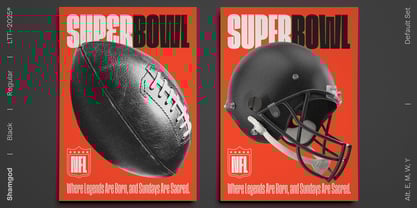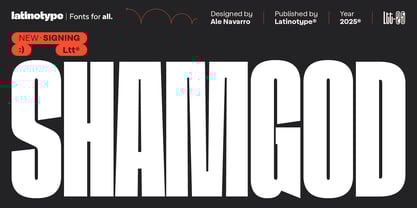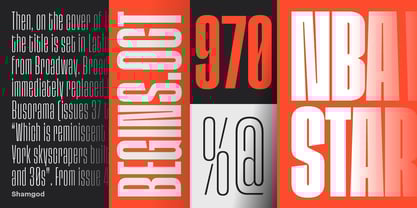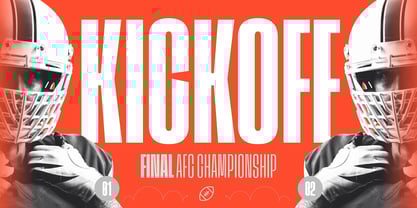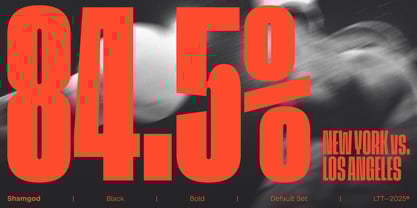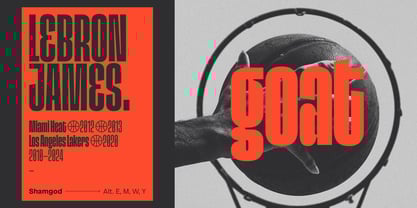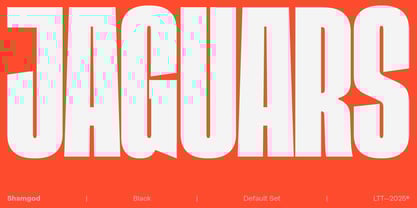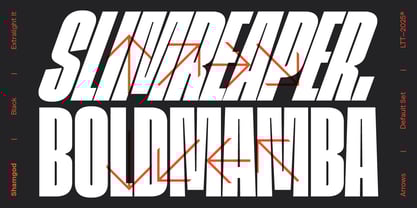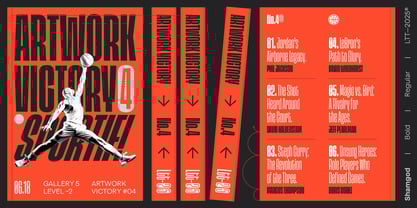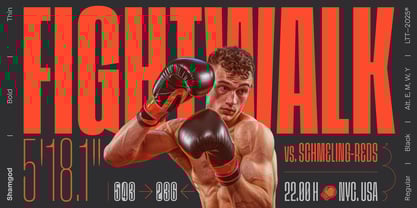
Shamgod
by Latinotype
Shamgod is a bold, ultra-condensed typeface designed to exude speed and energy. Its grotesque style, sharp diagonal cuts, and compact form capture the raw intensity of sports and the urban culture of the ’90s and 2000s. With its expressive character, Shamgod is perfect for eye-catching headlines, logos, and sports branding. Ideal for streetwear, digital design, and modern branding, it brings a strong, dynamic presence to any project. Whether used in posters, brand identities, or editorial layouts, its striking visual impact makes it a powerful choice for those seeking a bold, contemporary aesthetic.
Designers: Latinotype Team, Ale Navarro
Foundry: Latinotype
Based in Concepción and Santiago, Chile, Latinotype’s founders say, “Our goal is to design new typefaces remixing diverse influences related to our South American identity with high quality products for the contemporary design industry.” And the duo have been doing just that since their foundry’s creation in 2007. One of the most successful foundries on MyFonts in recent years, Luciano Vergara and Daniel Hernández, have put together a rapidly growing collection of typefaces in a wide array of genres. Specializing in colorful display and script faces, the group’s name “Latinotype” emphasizes the strong tie they feel to their cultural identity. The Premium foundry page can be viewed Here.